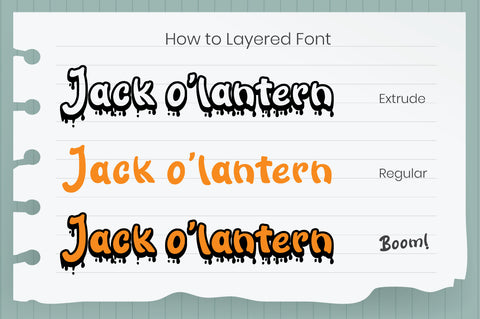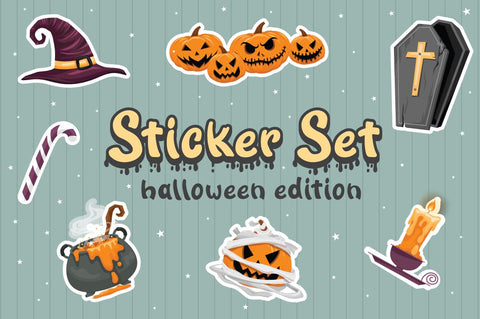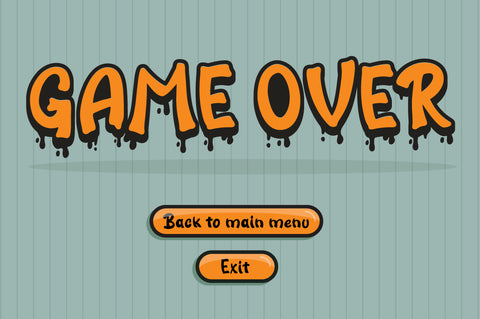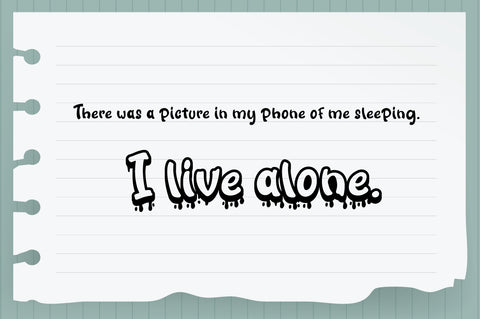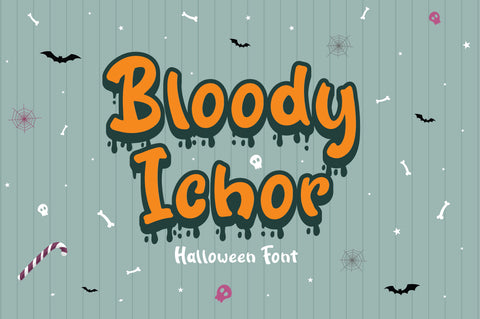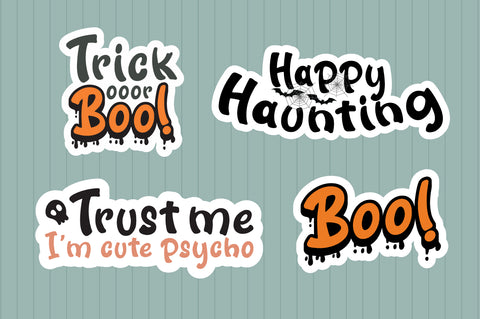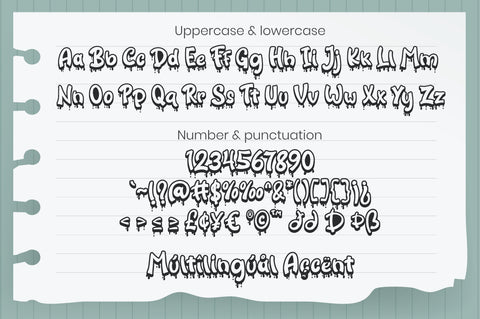
Bloody Ichor - Halloween Font
Bloody Ichor is a delicate and fun display dripping blood for Halloween layered display Font. Combine it with Bloody Ichor - Extrude to make an amazing 3D effect on your letter!
Bloody Ichor perfect for halloween promotion, branding, logo, invitation, stationery, social media post, product packaging, merchandise,
blog design, game titles, cute style design, Book/Cover Title and more.